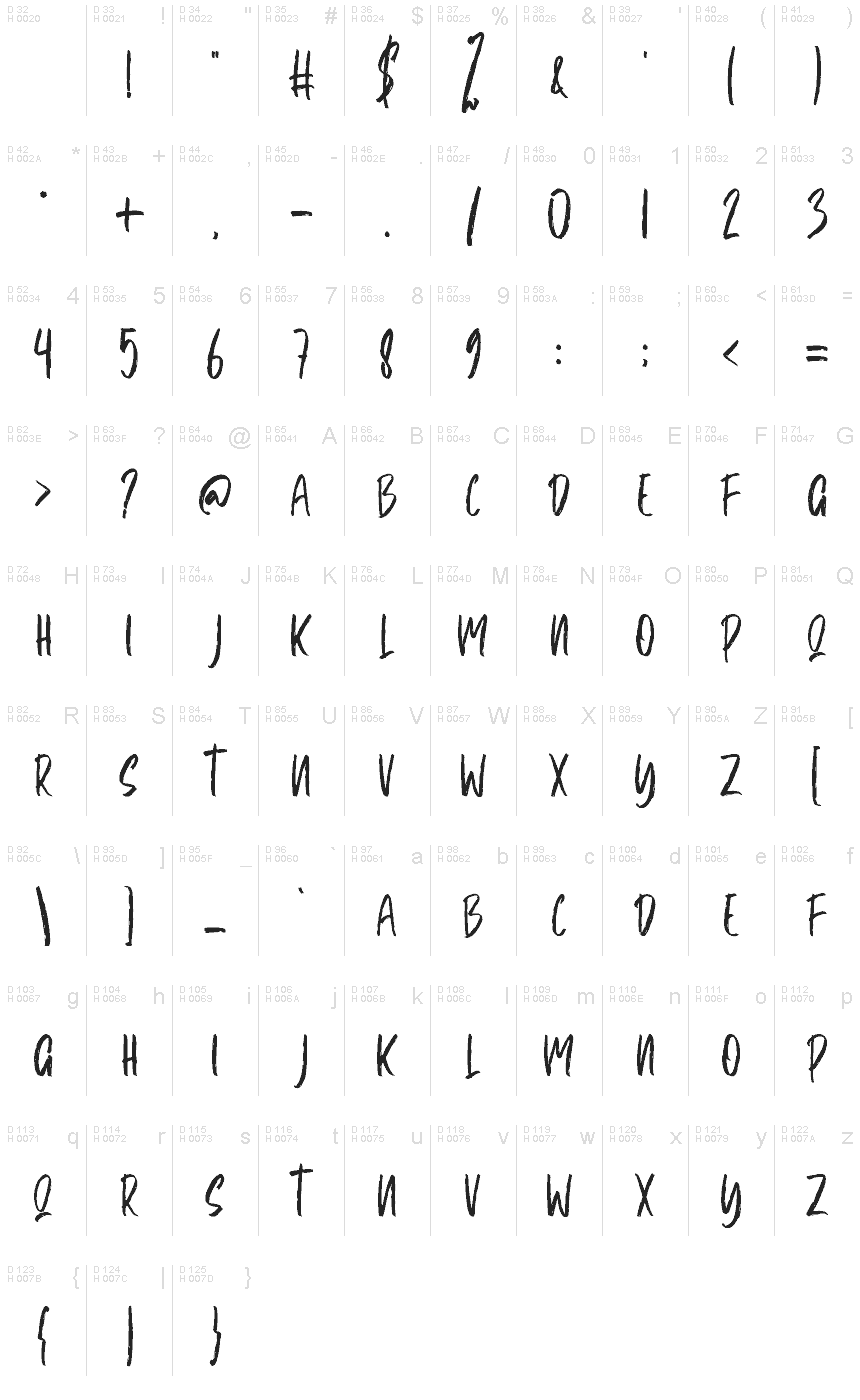
Daryse
Daryse font by Skiiller Studio is a contemporary brush font brimming with artistic flair and an energetic texture. Its condensed form channels a hand-drawn appearance, channeling the depth of skill and imagination that went into its creation. Each letter is crafted with precision to bring out expressive moods collectively which result in legible yet interesting texts. Daryse strikes the best balance between every typographic element as it brings forth an engrossing reading experience.